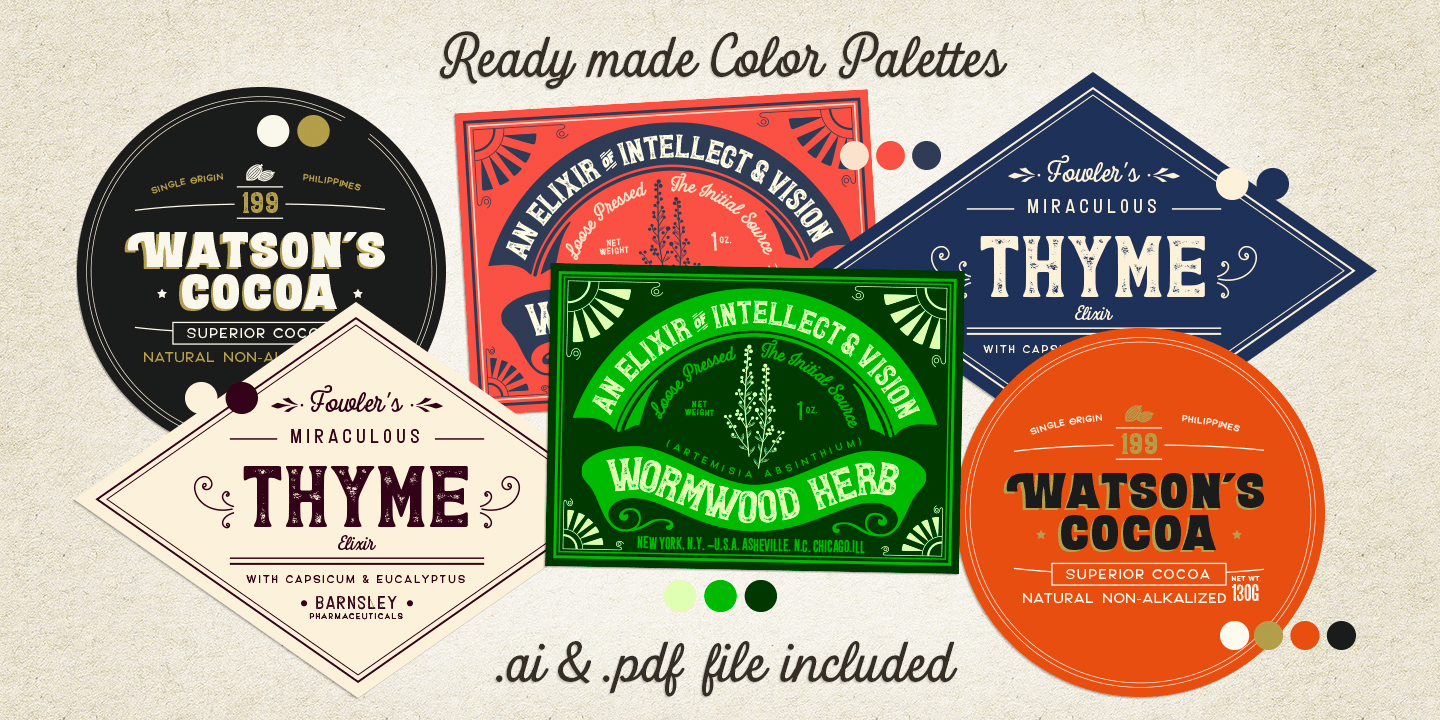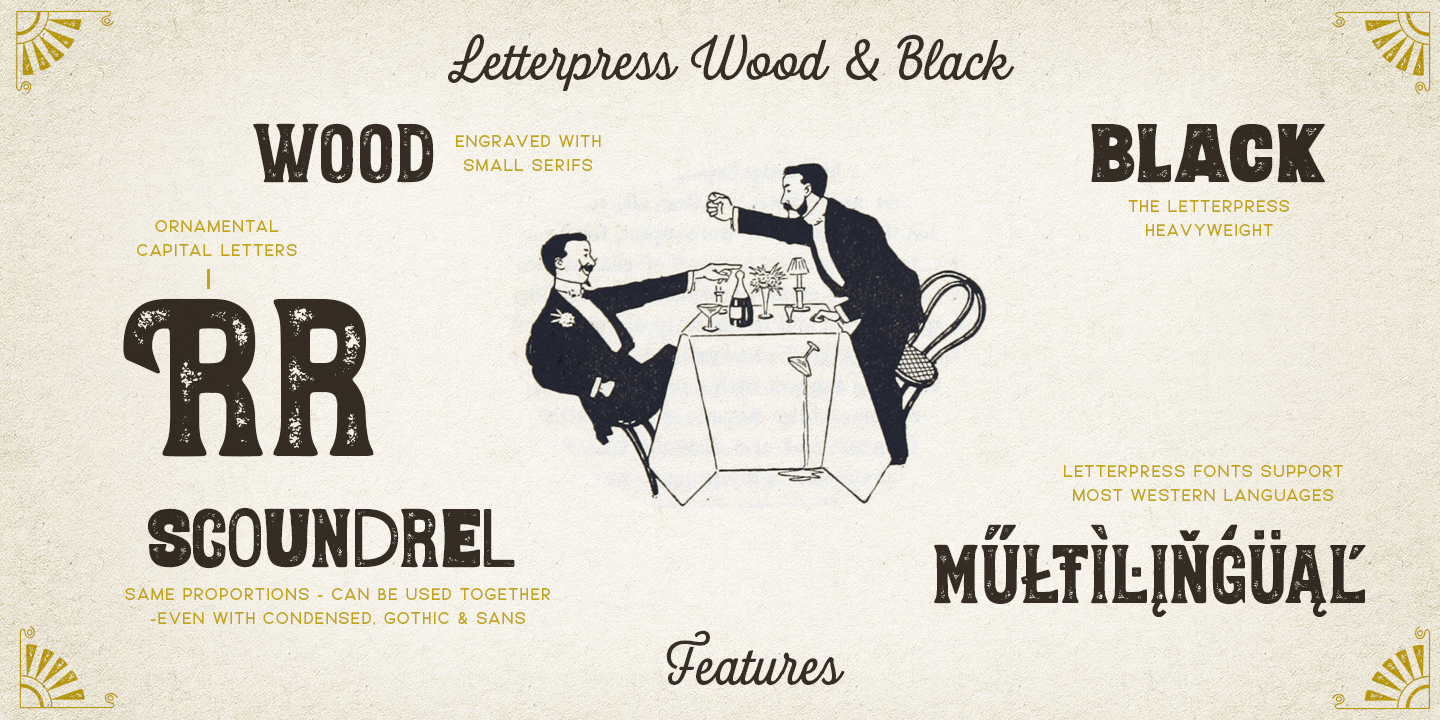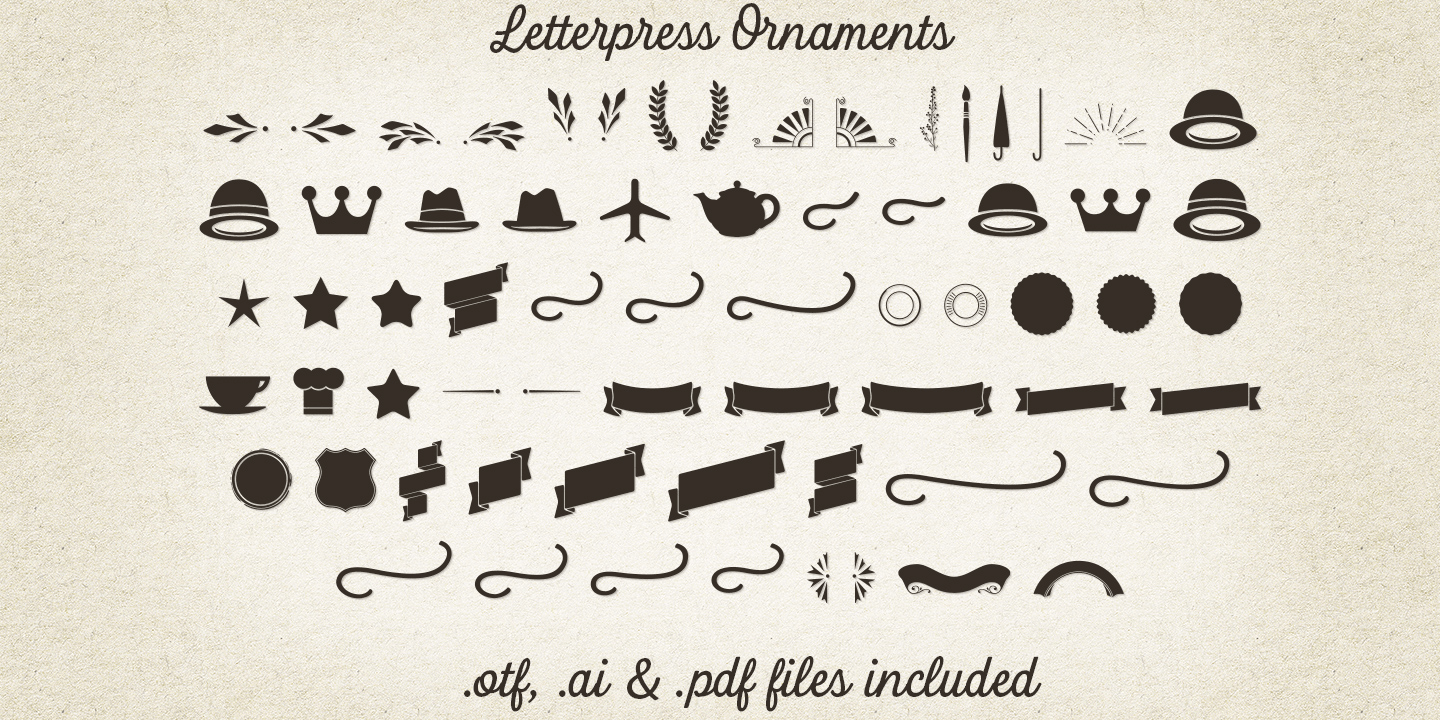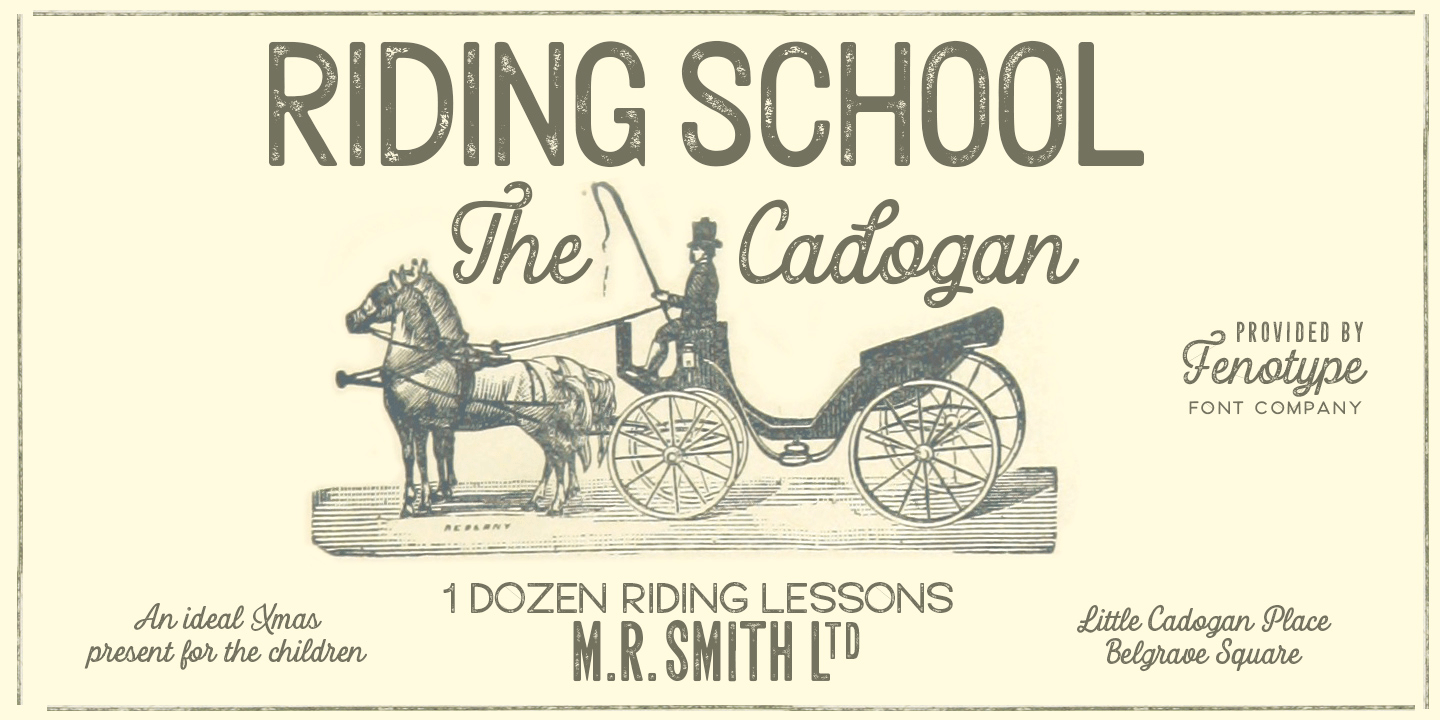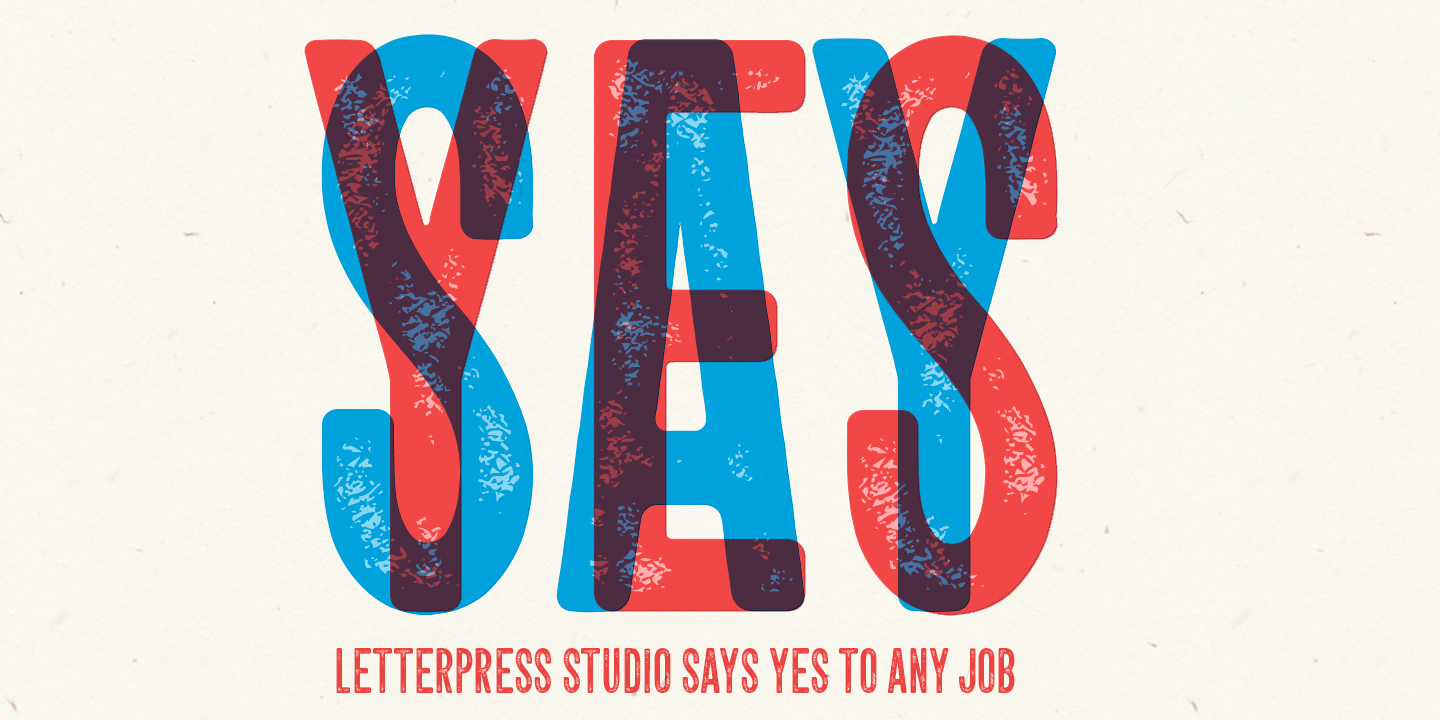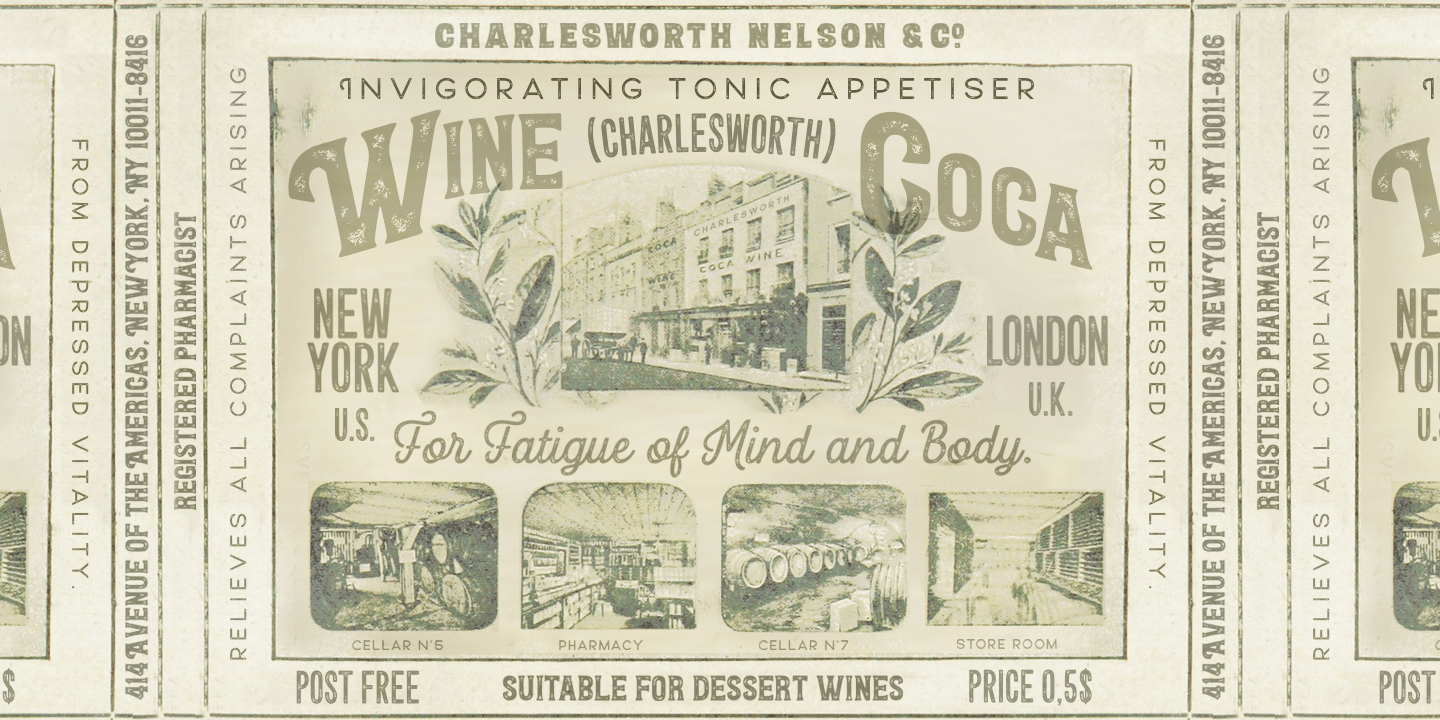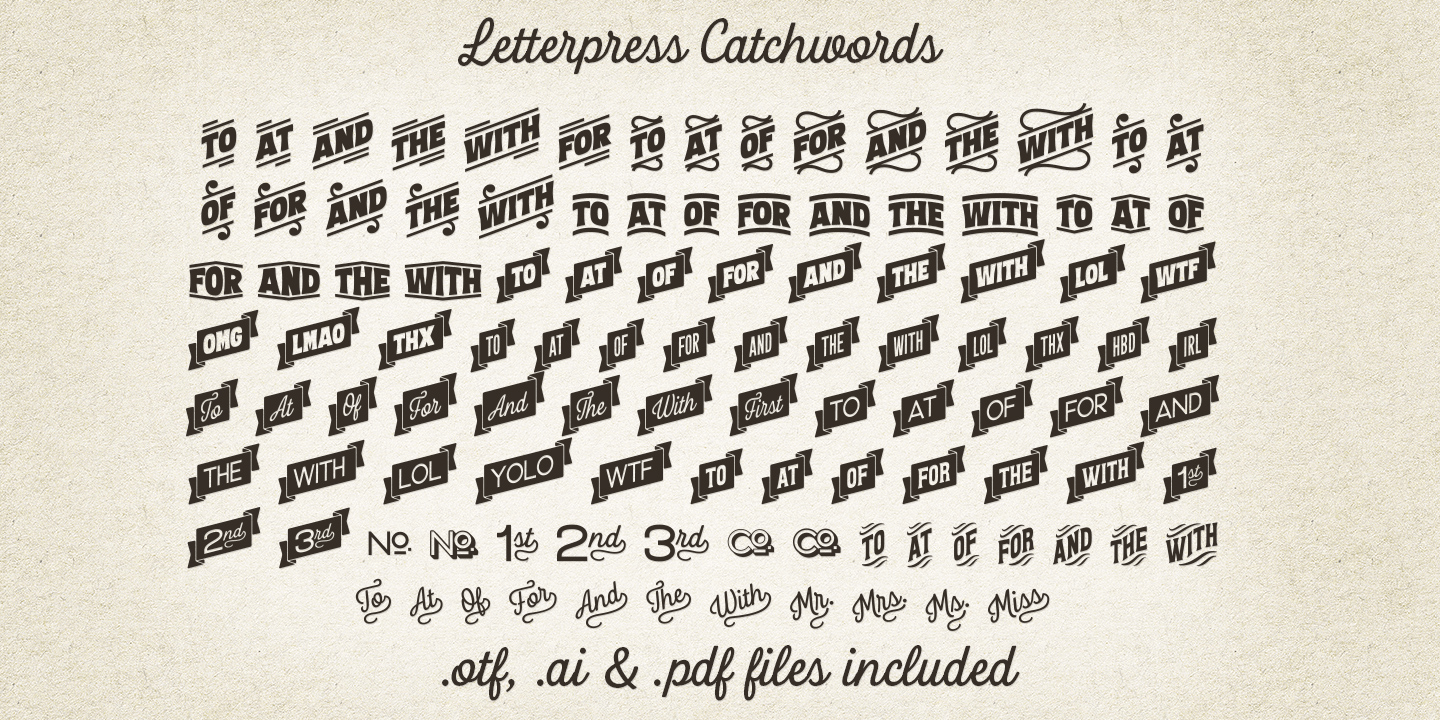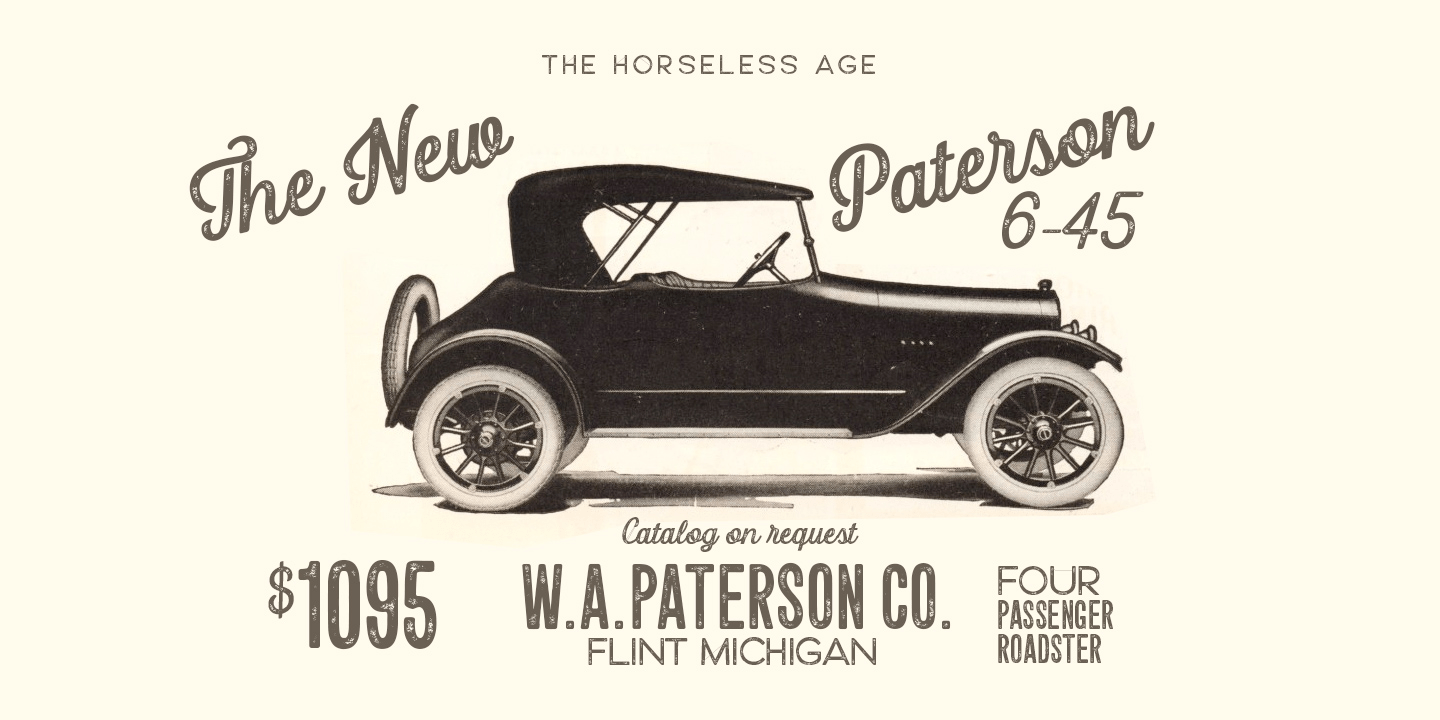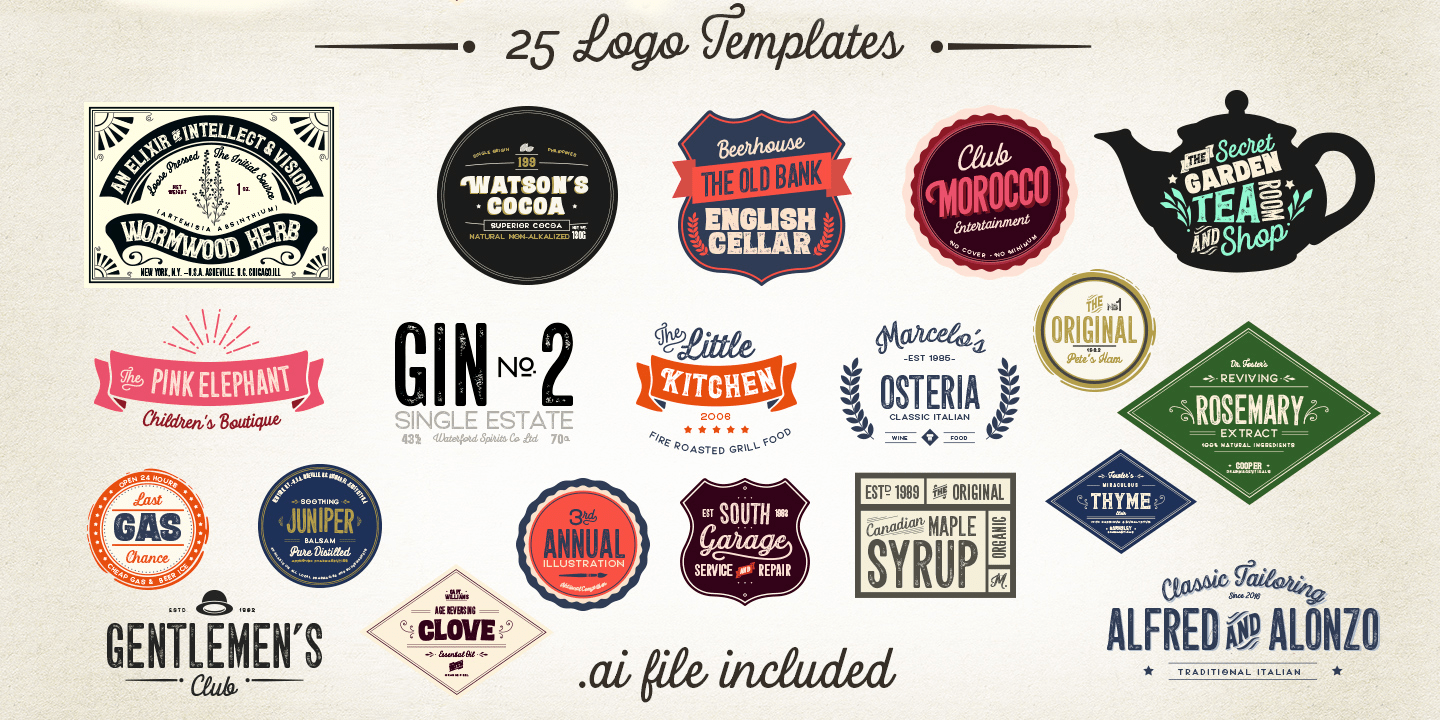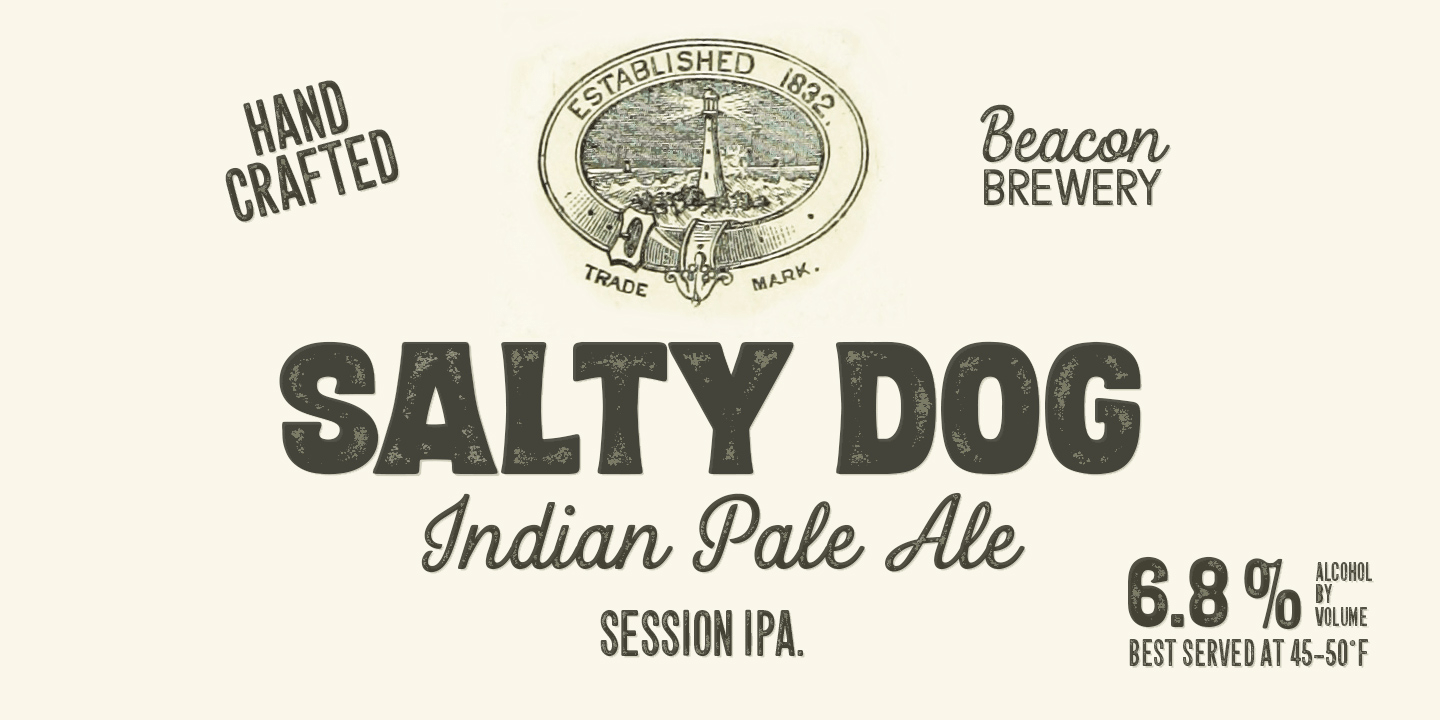
Letterpress Studio
Creating vintage goods is easy with Letterpress Studio! A collection of 18 fonts based on classic letterpress styles and forms.
- 7 fonts - a textured and clean version of each
- Ornaments
- Catchwords
- 25 Logo Templates
BONUS: Letterpress Templates is a set of 25 ready-made compositions with font pairings, shapes, ornaments and ready made 2-4 color schemes for each. Templates can be used as such or as a starting point for your own project.